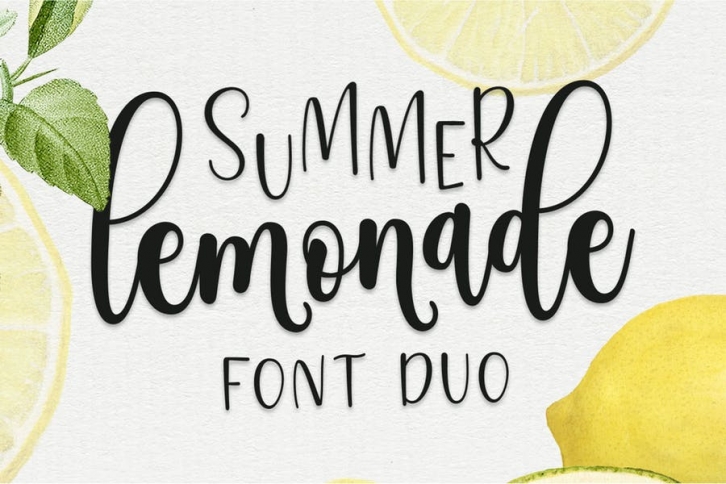
We just released a new font which is Summer Lemonade! We are very happy if you can visit and have a look :) this font is very easy to use and very fun. by combining two fonts, you can explore to make combinations that will be even better.Use these fonts for logos, social media, wedding decorations, invitations, home decor, websites, blogs, instagram, business cards, branding and more!